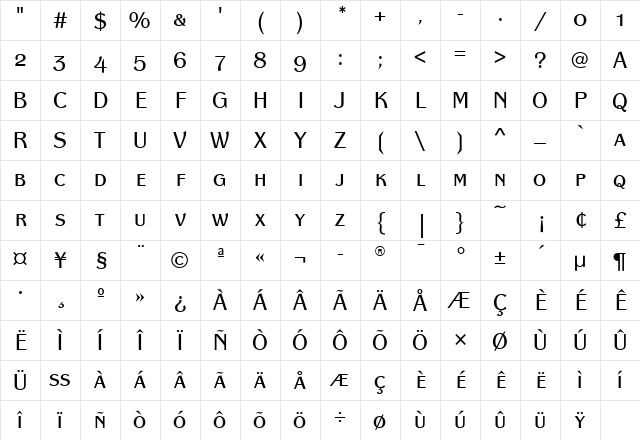
PanacheSCITC Book
Foundry: E+F Designstudios. ITC Panache is a registered trademark of International Typeface Corporation
Design Context for PanacheSCITC
PanacheSCITC is a composed and adaptable typeface that performs quietly and consistently across a wide range of design contexts.
Who designed the PanacheSCITC Book font?
This font was published by E+F Designstudios. ITC Panache is a registered trademark of International Typeface Corporation. Check the technical specs section for copyright and designer details.